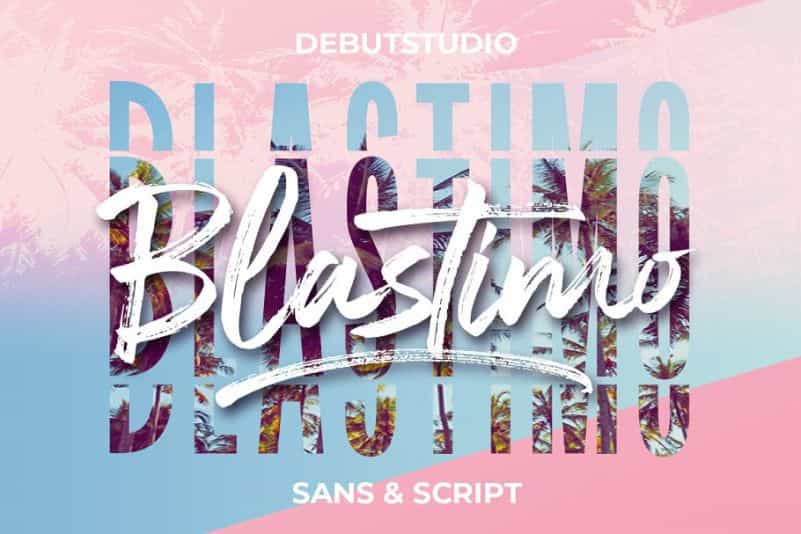
Discover Blastimo Font Duo, part of the Sans Serif Brush collection—a versatile and unique font perfect for adding a personal touch to your projects. Download it for free and enjoy crafting designs with style, from invitations to social media posts. This font is available exclusively for personal use, giving you the freedom to create without limits. Unlock your creativity with Blastimo Font Duo today!
Blastimo Sans & Script was made by hand using pencils and markers in order to give it a handcrafted, rough-edge feel; it is design and shared by Debut Studio. Hello Font Lovers!